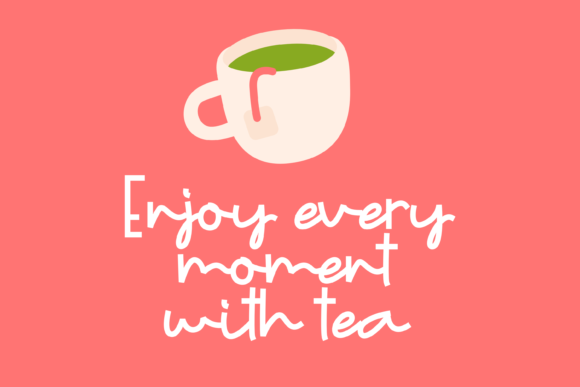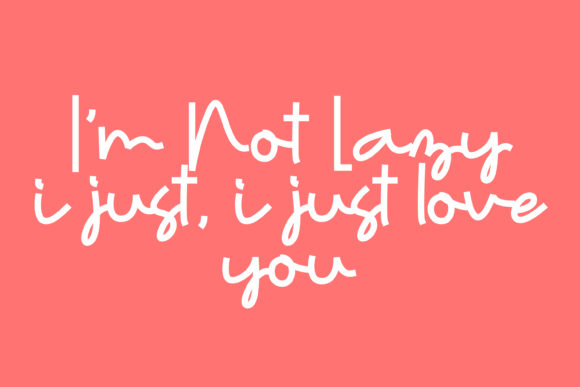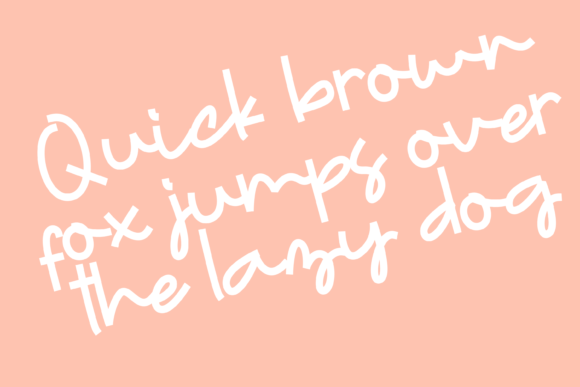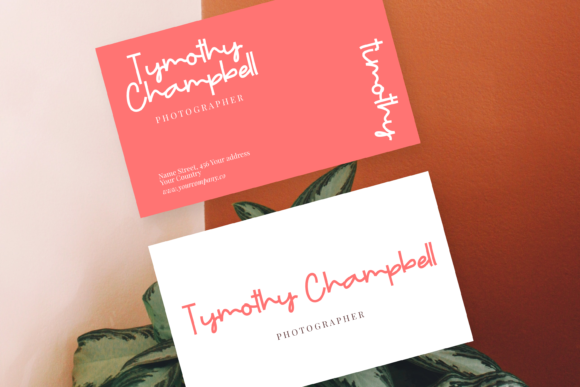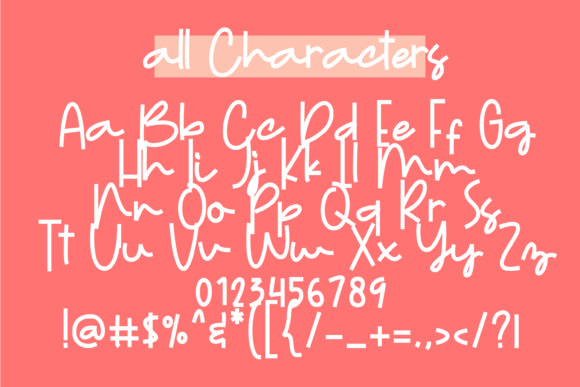
Amazed Emerald Font
About Amazed Emerald Font
Amazed Emerald is a chic, refined script font that emanates sophistication and elegance. Its stylish alternates and ligatures make this font the perfect match for any project.